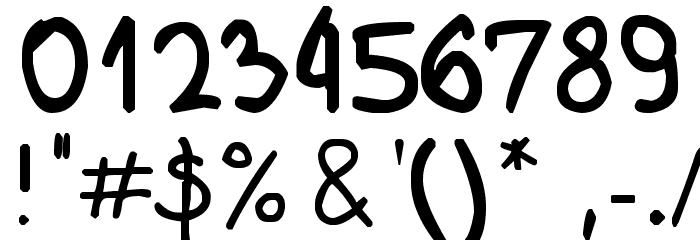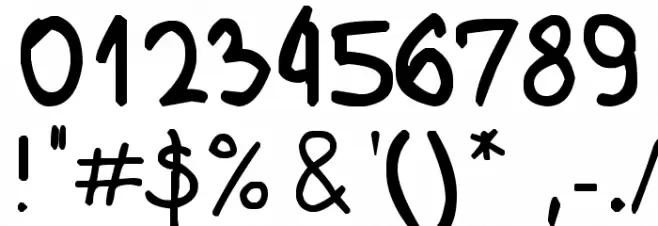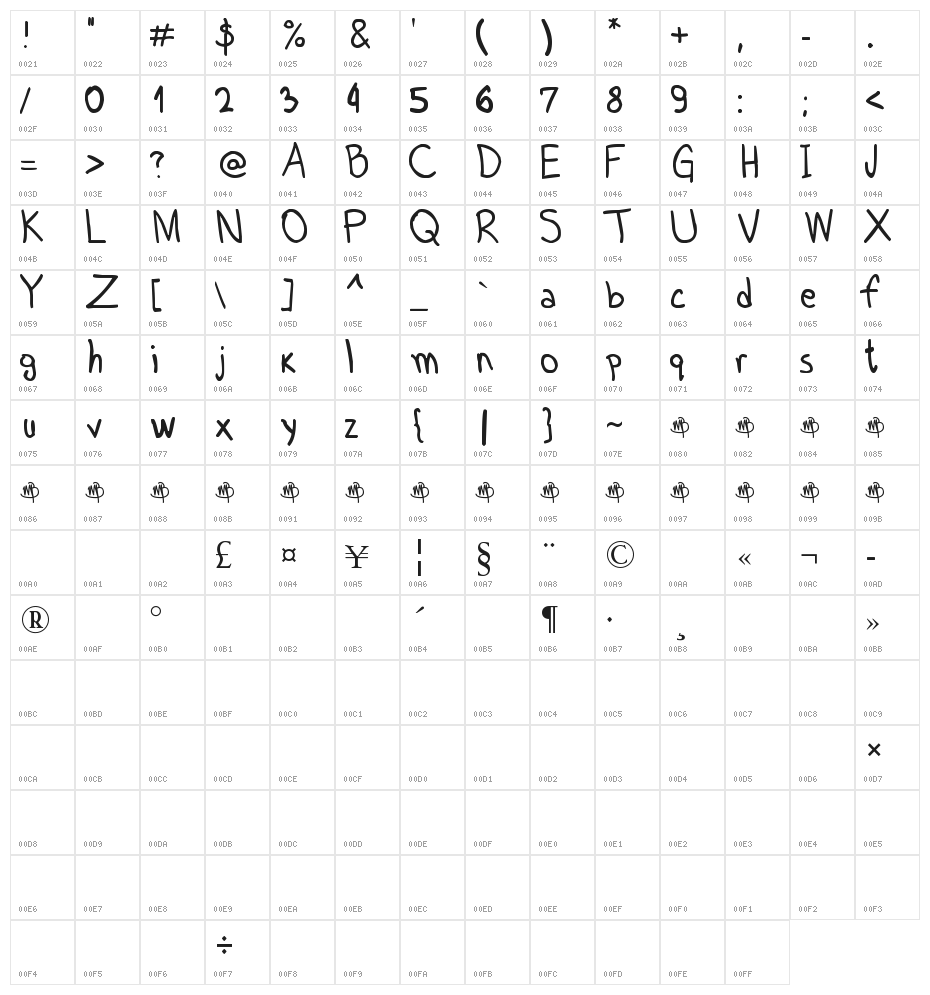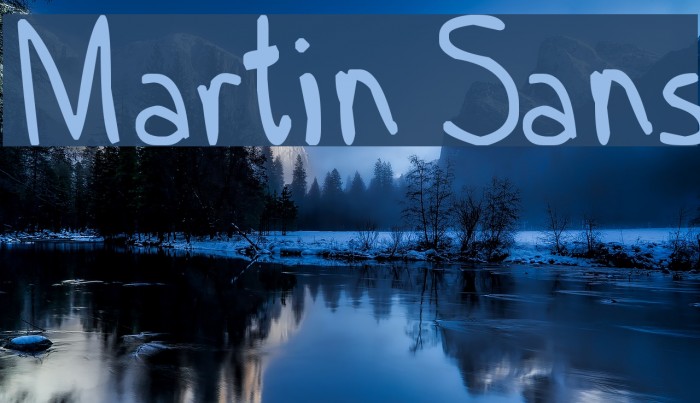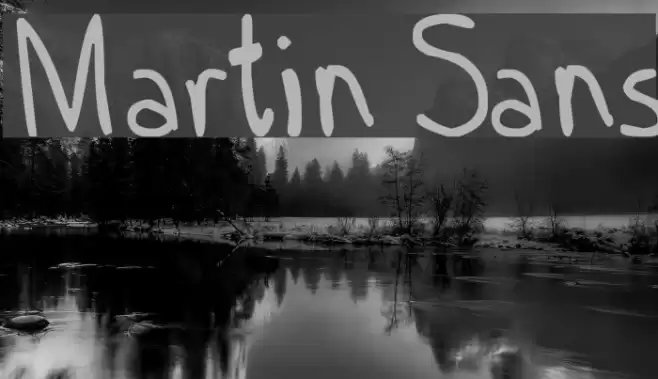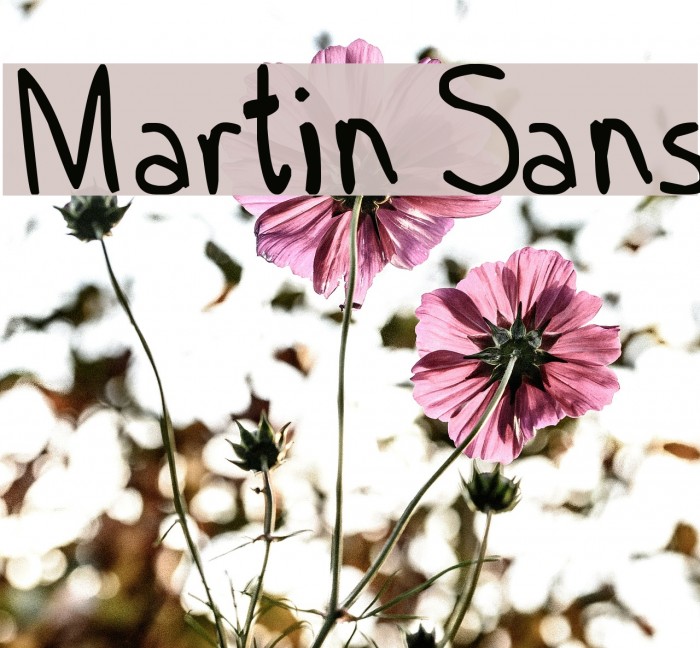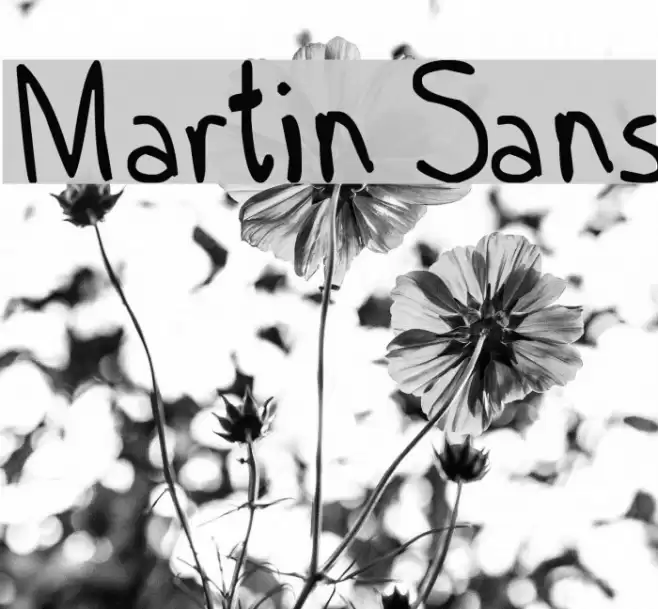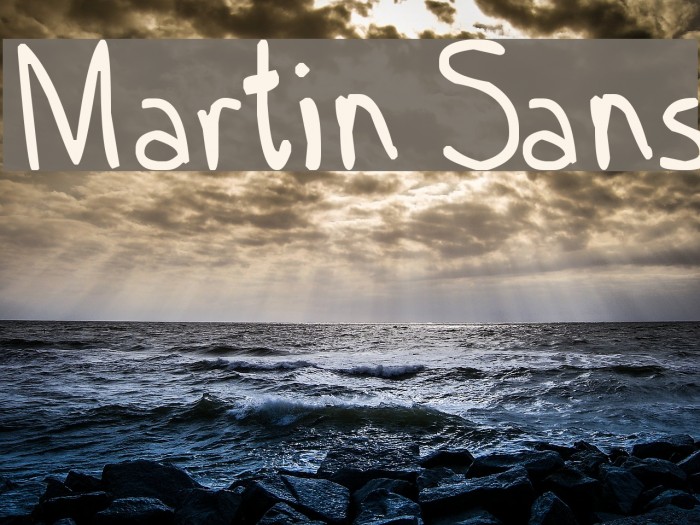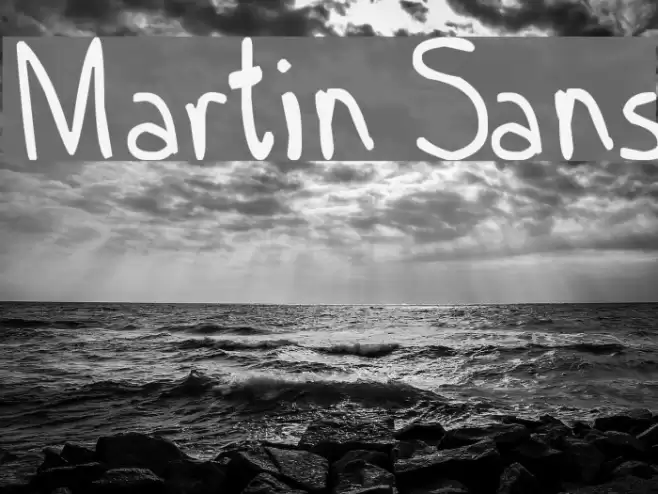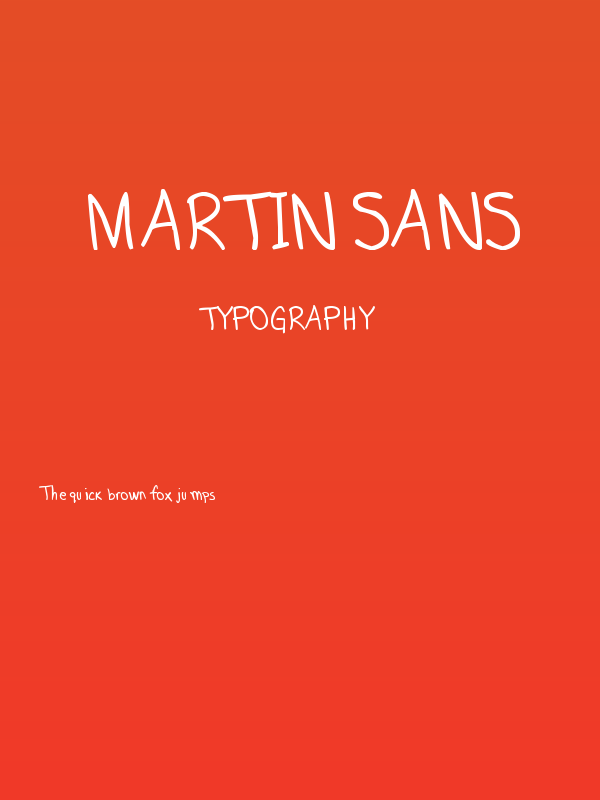
Martin Sans Font
Martin Sans Description
This font features a playful and casual handwritten style, characterized by its irregular and organic letterforms. The strokes vary in thickness, giving it a dynamic and lively appearance. The uppercase and lowercase letters maintain a consistent style, with rounded edges and a slightly tilted orientation, adding to its informal charm. The numerals and special characters are equally expressive, fitting seamlessly with the overall aesthetic. This font exudes a friendly and approachable vibe, making it ideal for projects that require a personal touch.
| Proposed Projects | Ideal for children's books, greeting cards, casual branding, and social media graphics. |